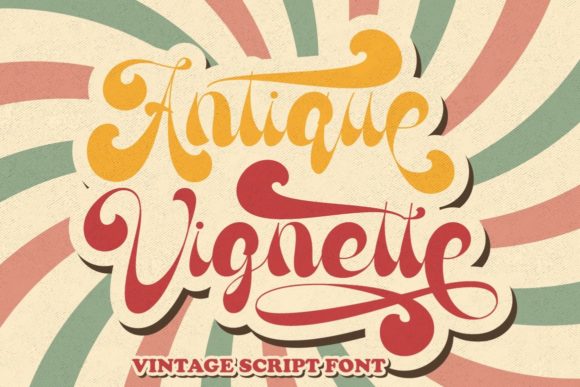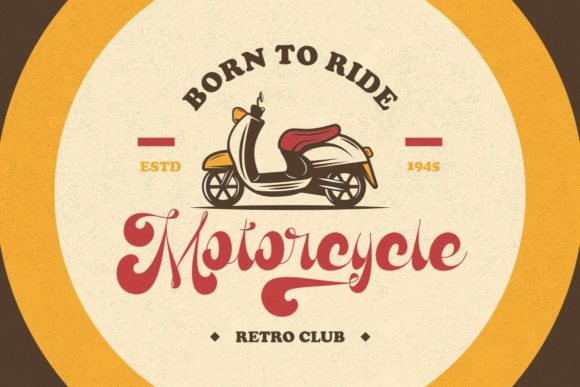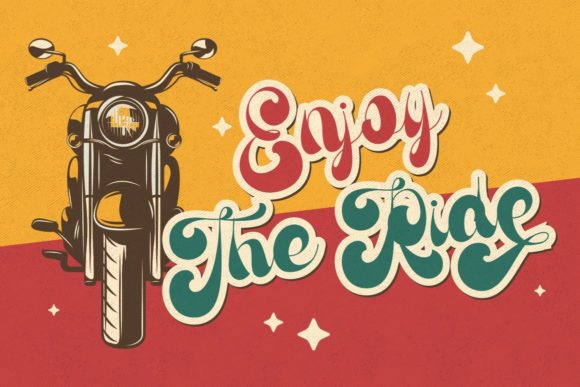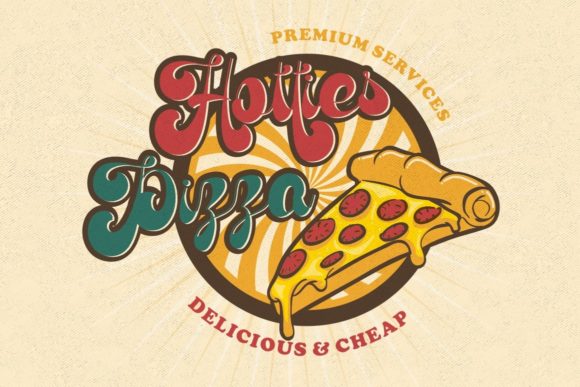
Antique Vignette Font
About the Antique Vignette Font
Elevate your designs with Antique Vignette Font, a font that combines sophistication with readability. Antique Vignette is a quirky vintage script font. The perfect combination of vintage/groovy style with classic lettering. So this font is suitable for your projects with vintage/retro/groovy themes. In addition, this font is also suitable for logos, branding, lettering, badges/emblems, quotes, posters, SVG, book titles, packaging, t-shirts/apparel, and others.
Antique Vignette’s playful vintage style shines in headlines, short text blocks, and branding elements where a touch of retro charm is desired. It works exceptionally well for logos, packaging for vintage-inspired products, and posters promoting events with a nostalgic feel. However, its ornate nature makes it unsuitable for body text or UI elements where readability is paramount. Avoid using it for long paragraphs or small sizes.
Consider pairing Antique Vignette with a clean sans-serif like Montserrat for a balanced contrast, or a geometric sans-serif like Futura for a more modern feel. For a sophisticated look, a classic serif like Garamond can complement its vintage character. A simple, neutral sans-serif provides excellent support as a secondary font for body copy if needed.
The font exudes a quirky, friendly, and slightly rebellious energy, making it ideal for brands aiming for a vintage-inspired yet approachable aesthetic. Avoid using it for projects requiring serious, corporate branding or where a minimalist, modern feel is paramount.
Antique Vignette Font Usage Examples
Antique Vignette Font Example